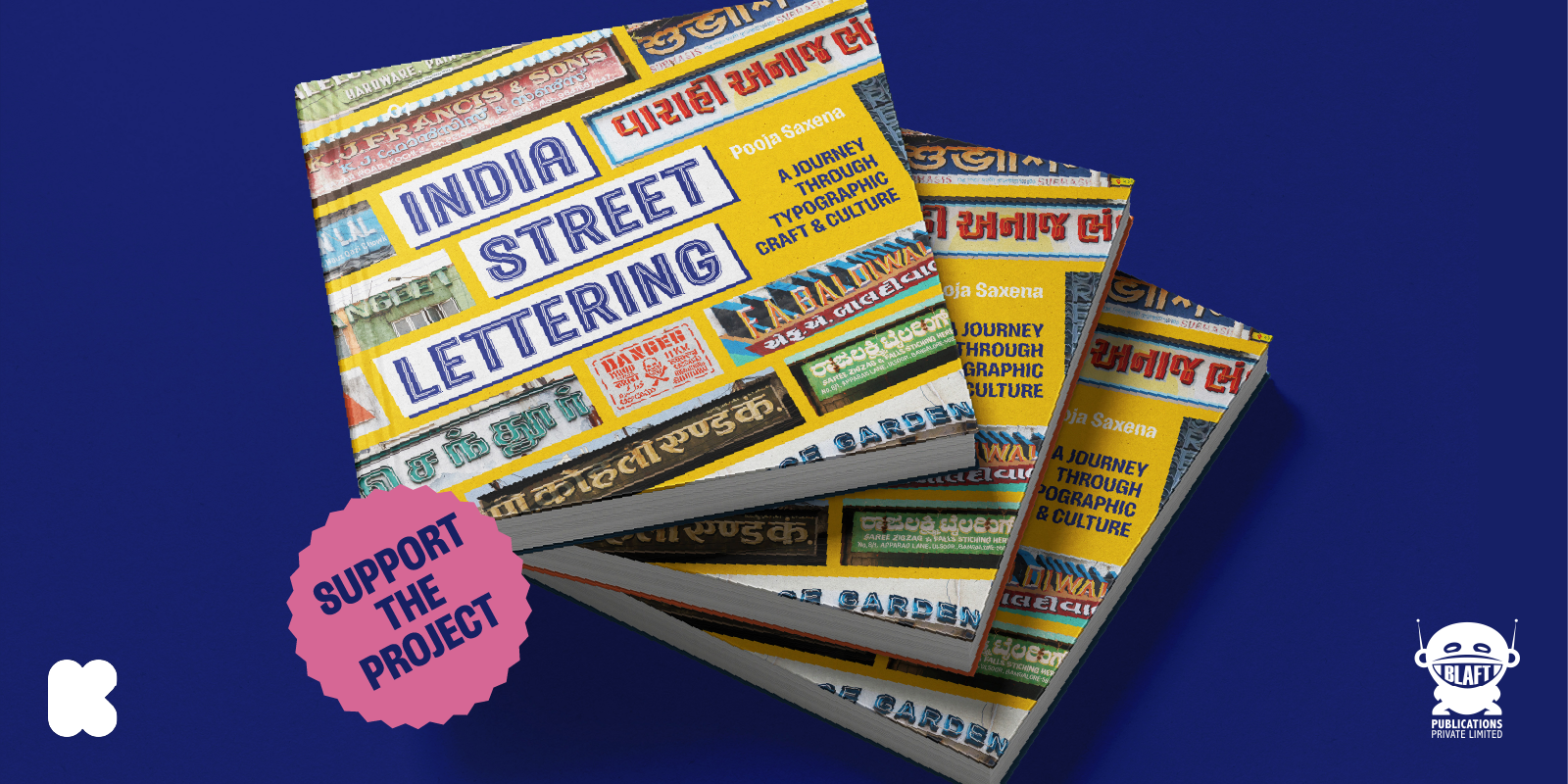
The past five days have been an exhilarating ride — last week Blaft Publications launched the Kickstarter campaign to crowdfund India Street Lettering: A Journey through Typographic Craft and Culture — my new book bringing together much of what I have documented and learned through this project. And to our absolute surprise and delight, we blew past our target in less than 24 hours! I am so grateful to every single person who contributed or boosted the campaign. It was a little reminder that the internet can still be a kind and warm place.
India Street Lettering will be a 200-page hardcover full-colour book showcasing striking public lettering from the country: in paint, in relief, in mosaic, in neon, in wood, you name it. It is no mere coffee table book, though. I’m writing new essays to foreground the signs in their locales as well as the broad sweep of culture and design history. Plus — and this has been an education me — the book will present the stories of a handful of sign painters and craftspeople, all of whom I’ve interviewed especially for this volume. You can read more about some of the featured sign makers on Kickstarter.